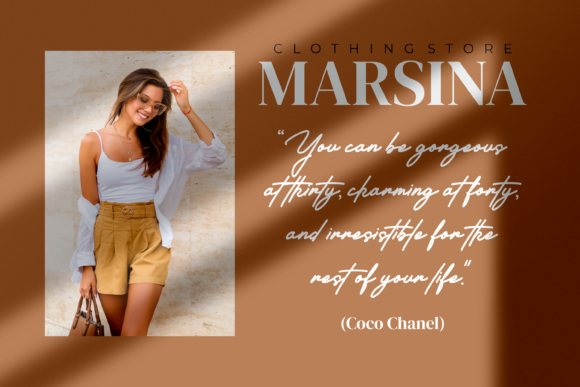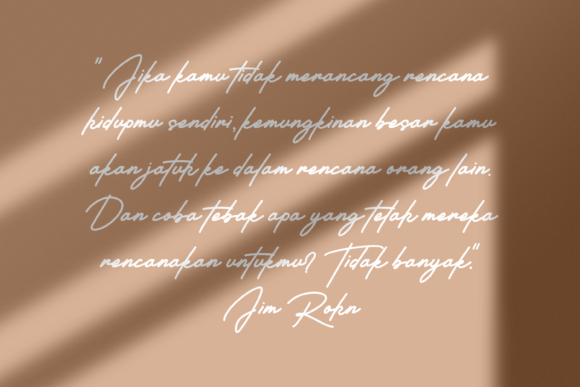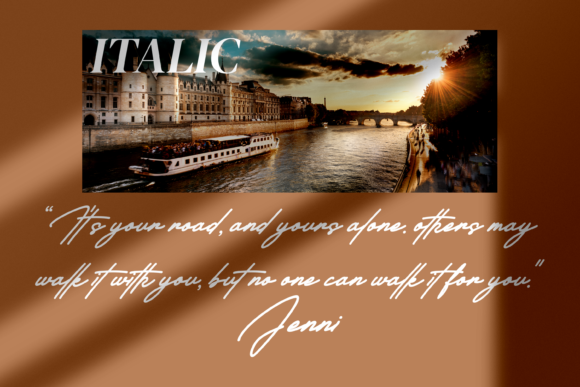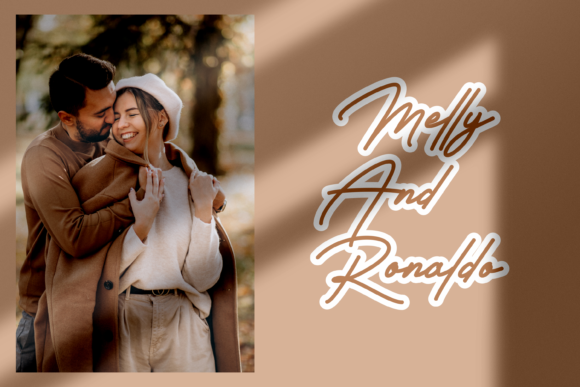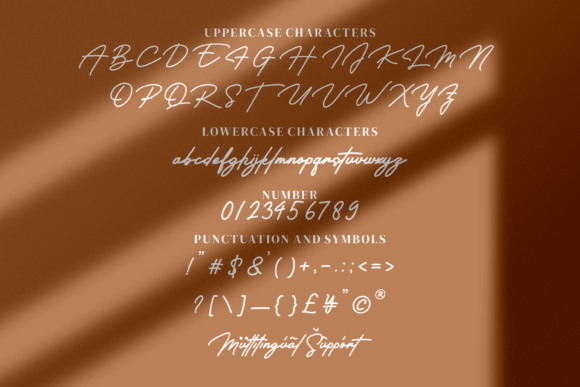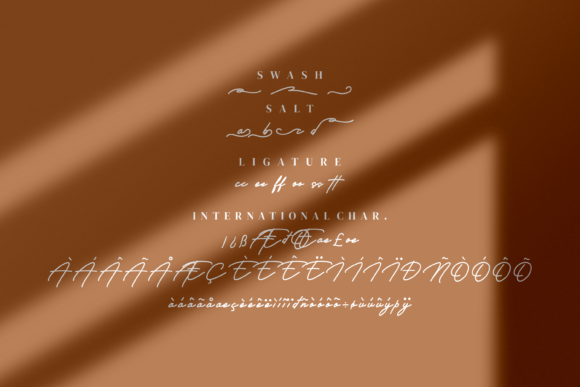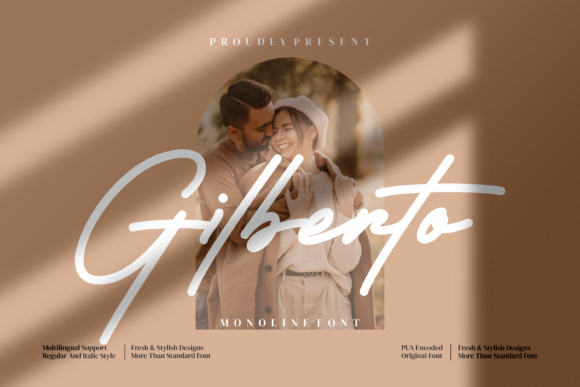
Gilberto Font: Elevate Your Designs with Elegance and Sophistication
In the world of typography, few fonts manage to capture the essence of elegance and sophistication as effortlessly as Gilberto. This stylish and incredibly elegant script font has taken the design community by storm, offering a versatile and beautiful solution for a wide range of creative projects. From wedding invitations and thank you cards to quotes, greeting cards, logos, business cards, and more, Gilberto brings a touch of handwritten charm that can elevate any design.
The Characteristics of Gilberto Font
Gilberto is not just another script font; it’s a meticulously crafted typeface that embodies the perfect blend of classic sophistication and modern flair. Its fluid strokes, graceful connections, and delicate nuances make it stand out in the realm of digital typography. Here are some of the key characteristics that make Gilberto an exceptional choice for designers and crafters:
- Elegant and Refined: Gilberto exudes an air of elegance, making it perfect for designs that require a touch of sophistication and luxury.
- Versatile: Whether you’re working on wedding-related designs, business branding, or personal projects, Gilberto’s versatility ensures it can adapt to various design needs.
- Handwritten Touch: The font’s script nature gives it a personal, handwritten feel that can add warmth and personality to your designs.
- Readable: Despite its elegant and cursive nature, Gilberto maintains a high level of readability, making it suitable for both headings and body text.
Uses of Gilberto Font
The applications of Gilberto are vast and varied. Here are some popular uses of this beautiful script font:
- Wedding Invitations: Add a touch of romance and elegance to your wedding invitations, save the dates, and ceremony programs.
- Thank You Cards: Express gratitude in style with beautifully designed thank you cards that speak to the heart.
- Quotes and Typography: Use Gilberto to create stunning typographic quotes that can be used for inspiration, decoration, or sharing on social media.
- Greeting Cards: From birthday wishes to holiday greetings, Gilberto can help you create cards that are both personal and visually appealing.
- Logos and Branding: For businesses that want to convey elegance, sophistication, and a personal touch, Gilberto can be a valuable asset in creating a memorable brand identity.
- Business Cards: Stand out in the professional world with business cards that feature a stylish and elegant font, making a lasting impression on potential clients or partners.
Why Designers and Crafters Love Gilberto
Designers and crafters are always on the lookout for fonts that can help them create stunning and effective designs. Gilberto has quickly become a favorite among professionals and hobbyists alike for several reasons:
- Time-Saving: With Gilberto, you can achieve professional-looking results without spending hours on custom lettering.
- Consistency: Using a single, high-quality font ensures consistency across your designs, which is crucial for building a strong brand identity.
- Emotional Connection: The elegant and personal nature of Gilberto helps create an emotional connection with the audience, making your designs more impactful.
Gilberto font is more than just a script font; it’s a tool that can transform your designs, adding a layer of elegance, sophistication, and personal touch. Whether you’re a professional designer or a crafting enthusiast, Gilberto offers a world of possibilities for creating beautiful and memorable designs. With its versatility, readability, and stunning aesthetics, Gilberto is sure to become an indispensable part of your design toolkit.